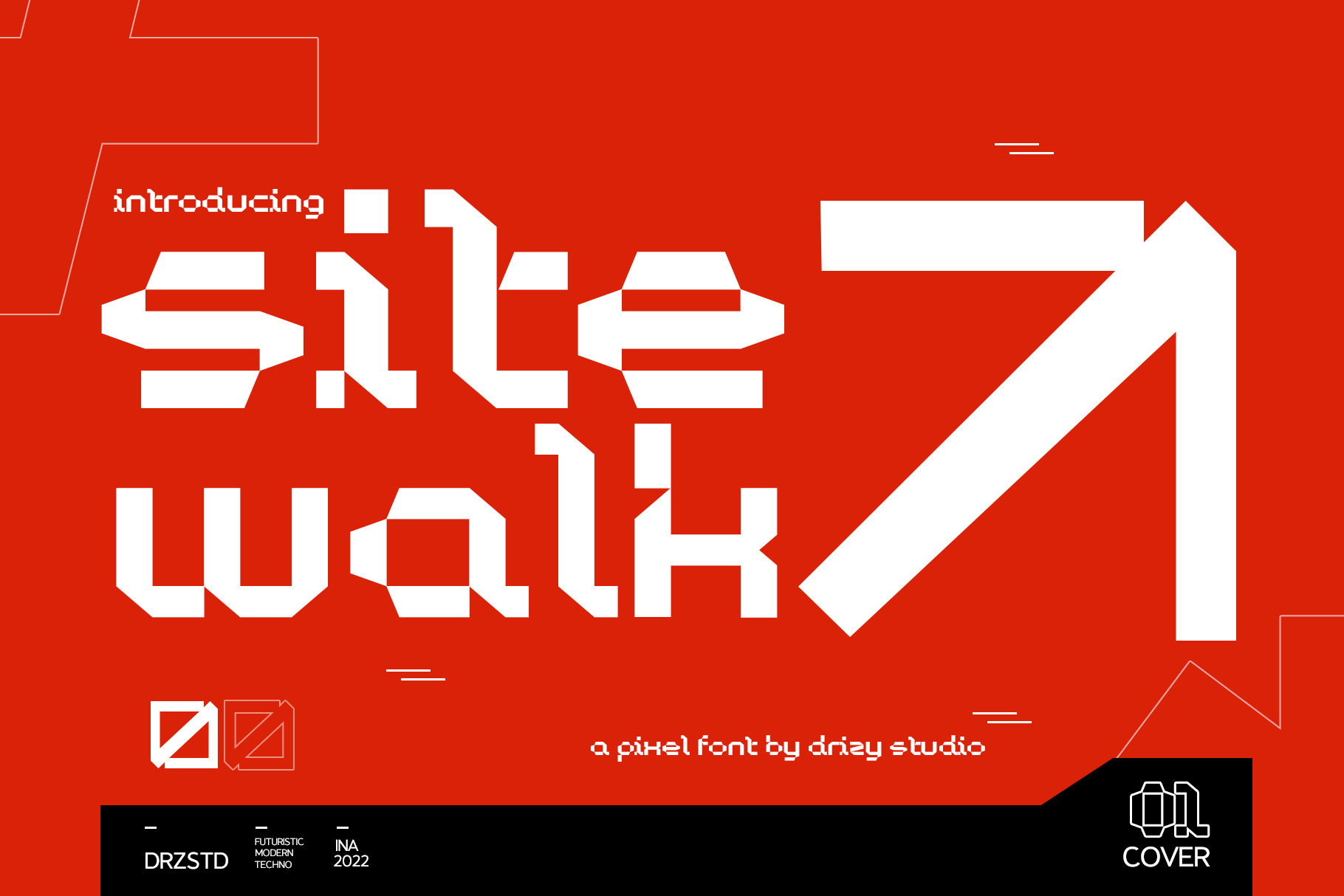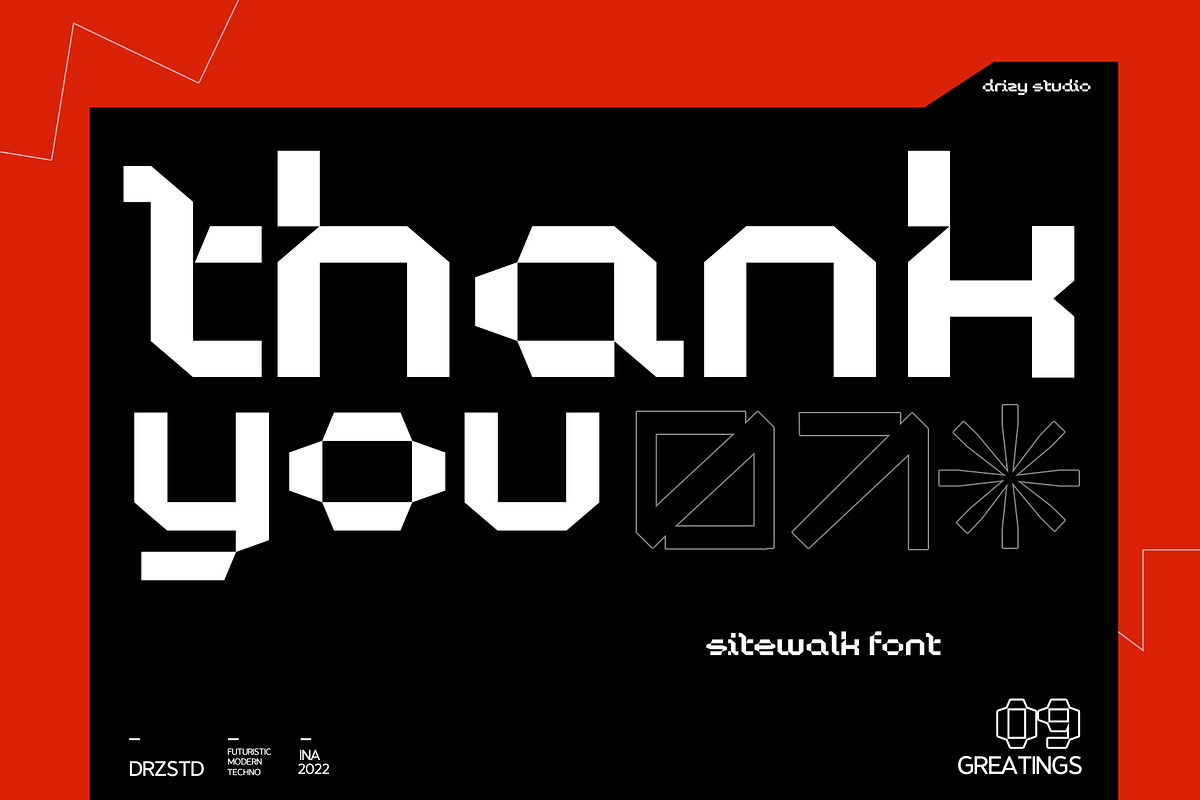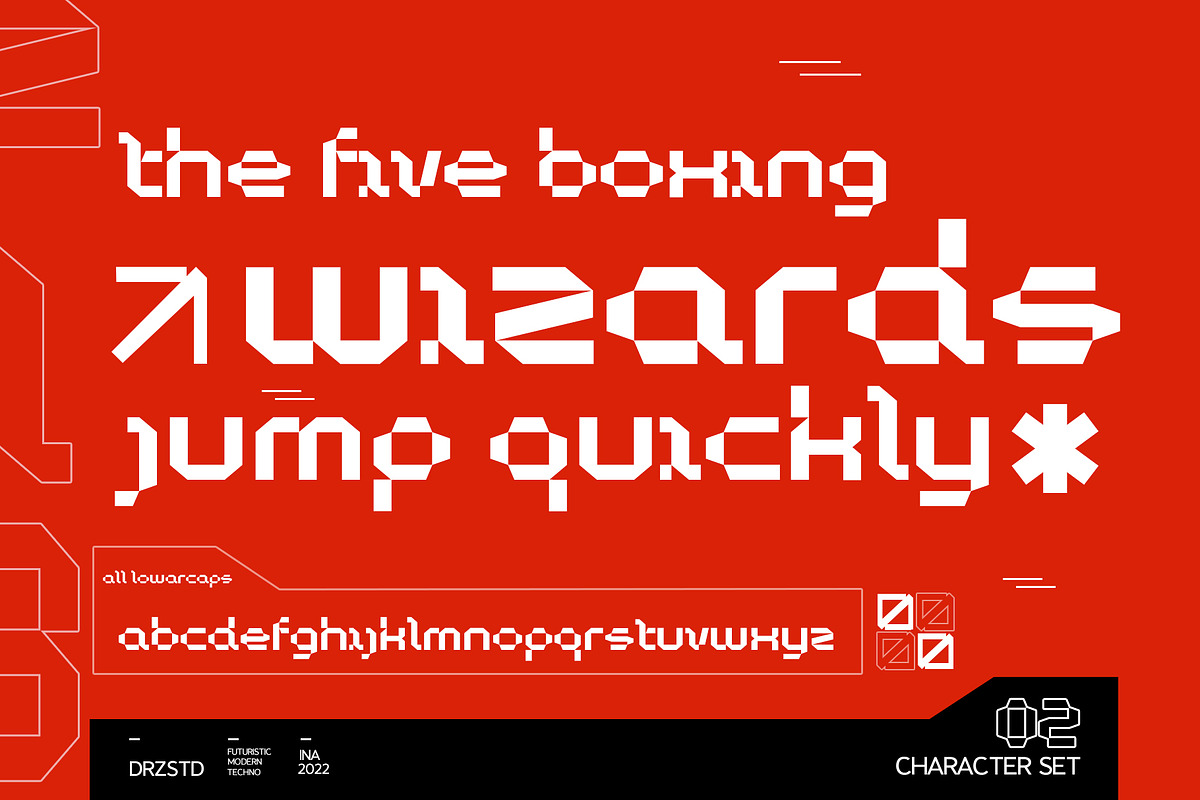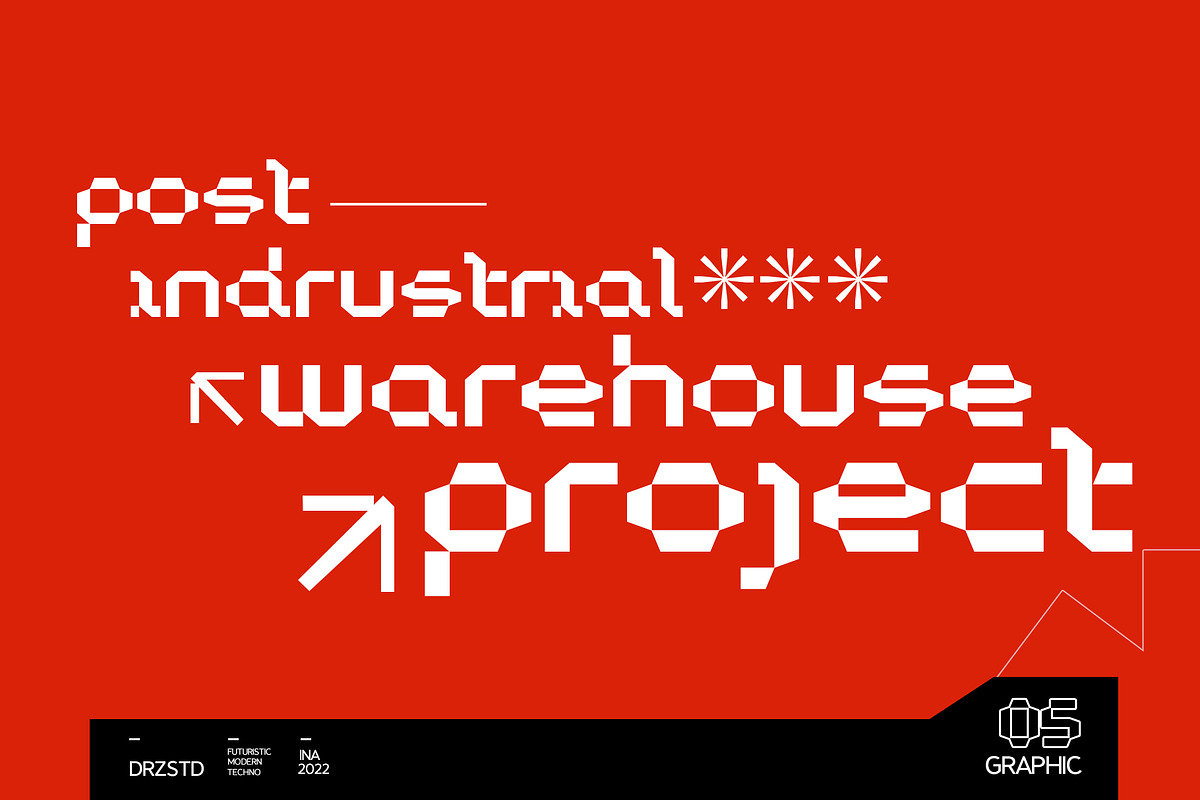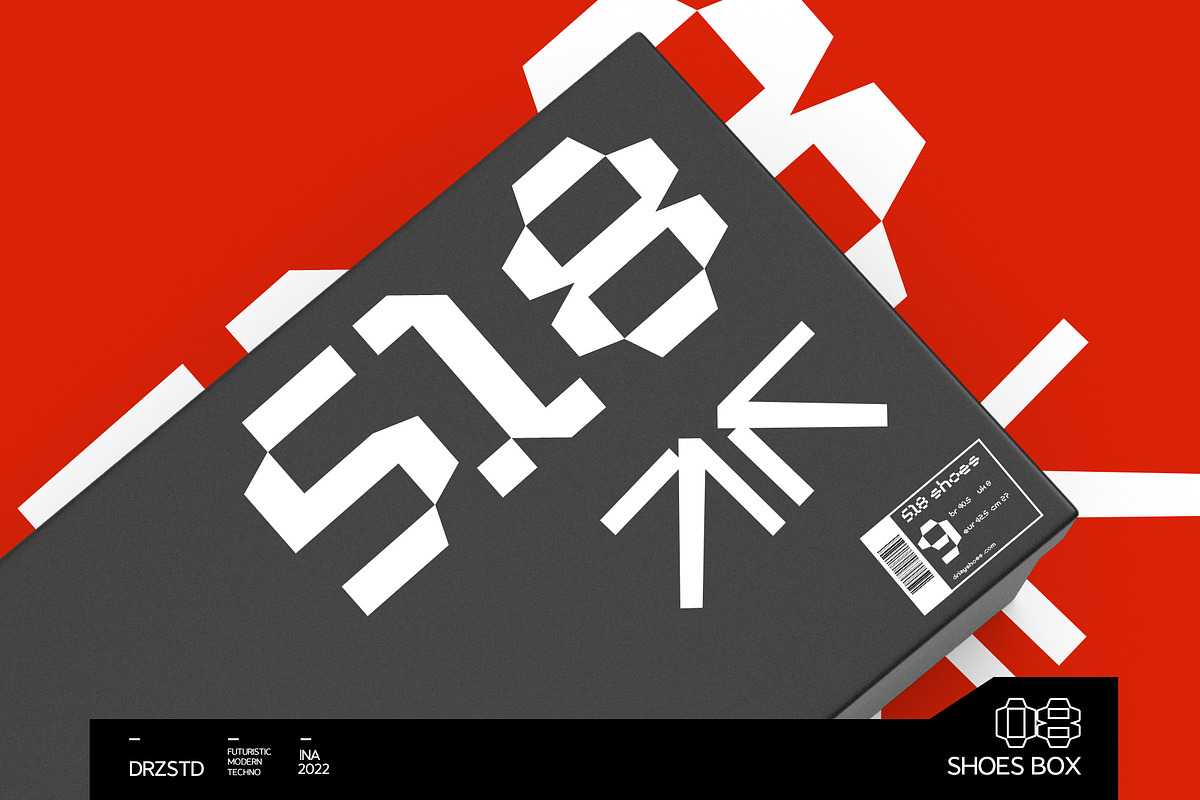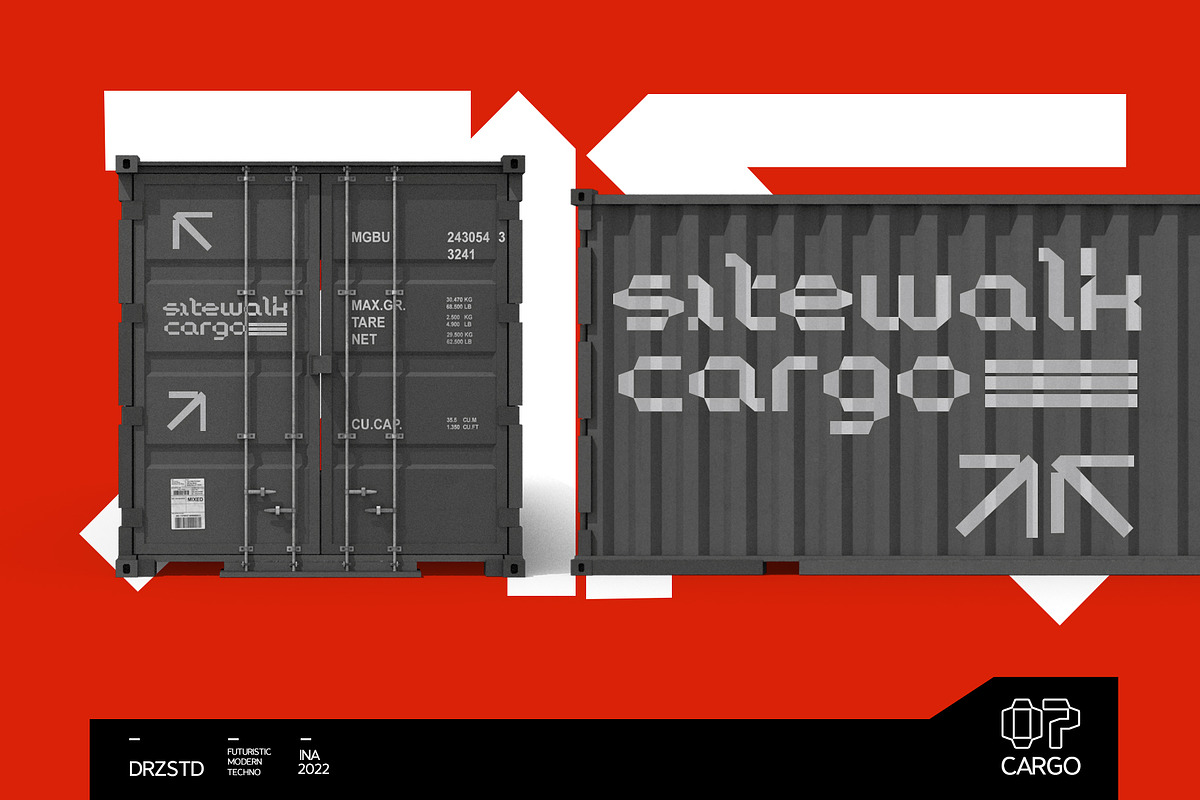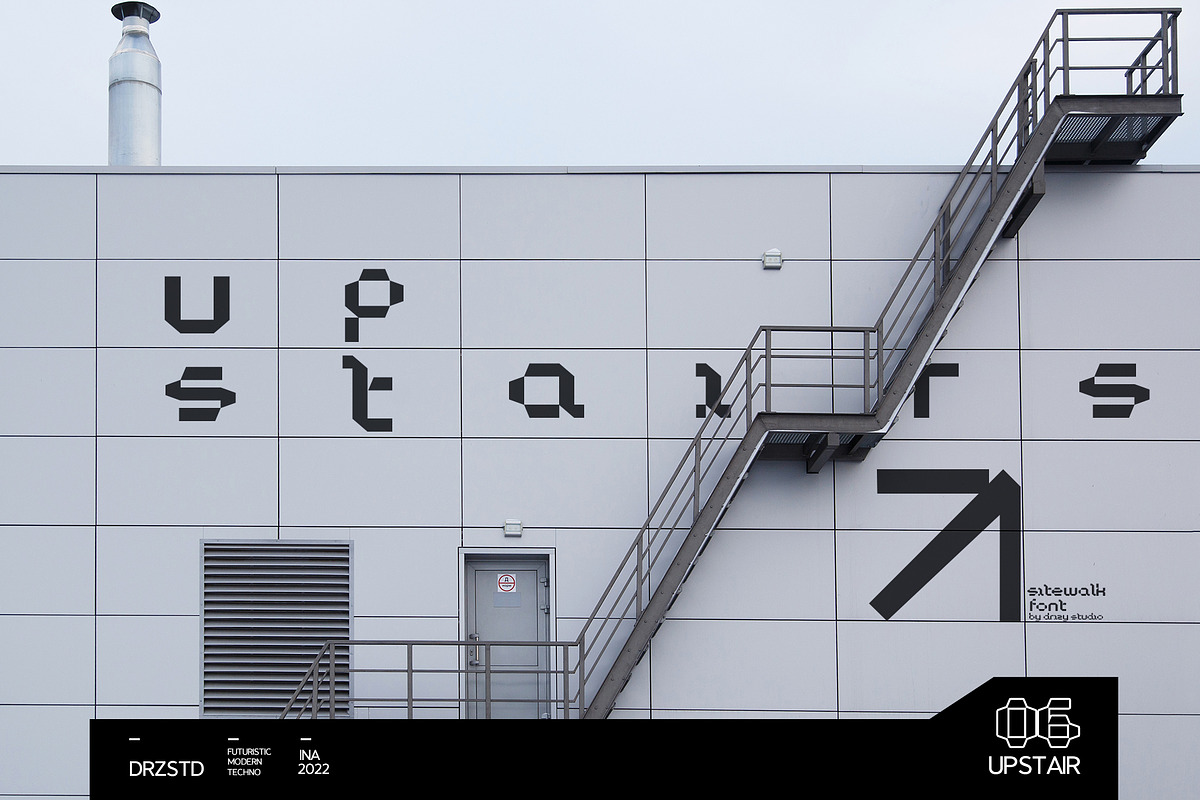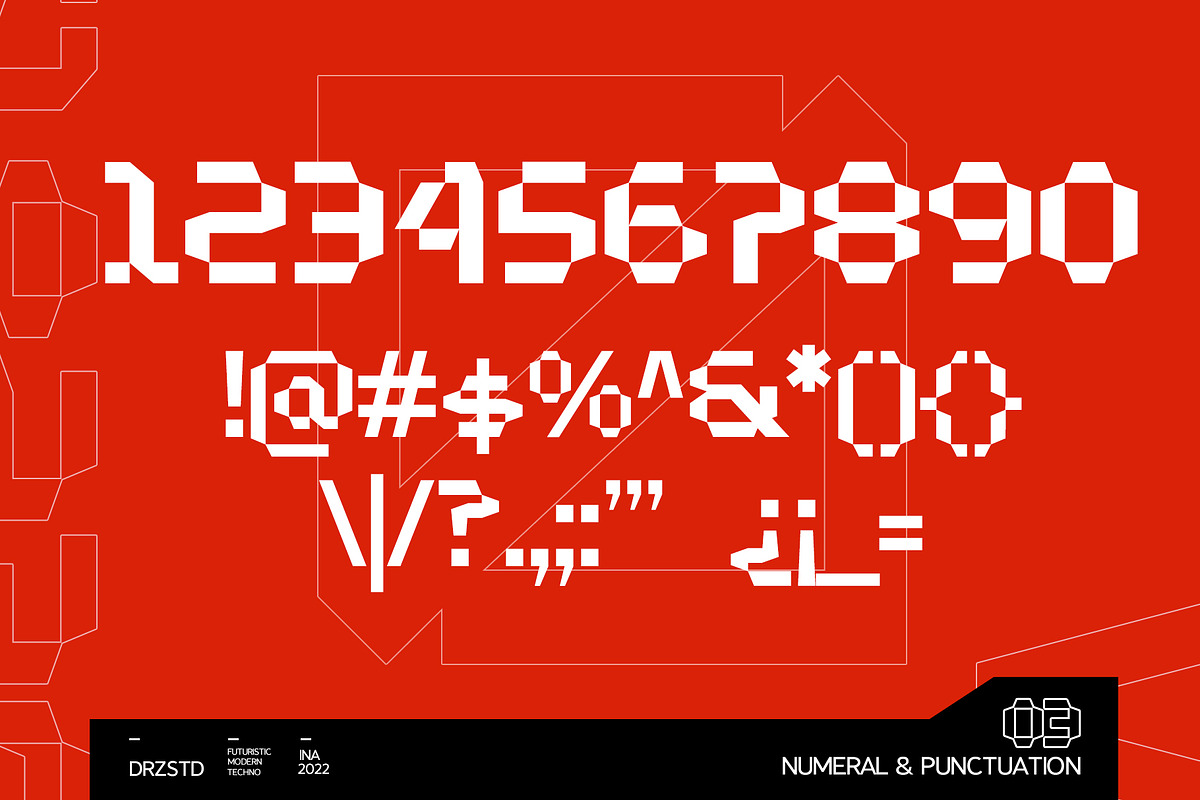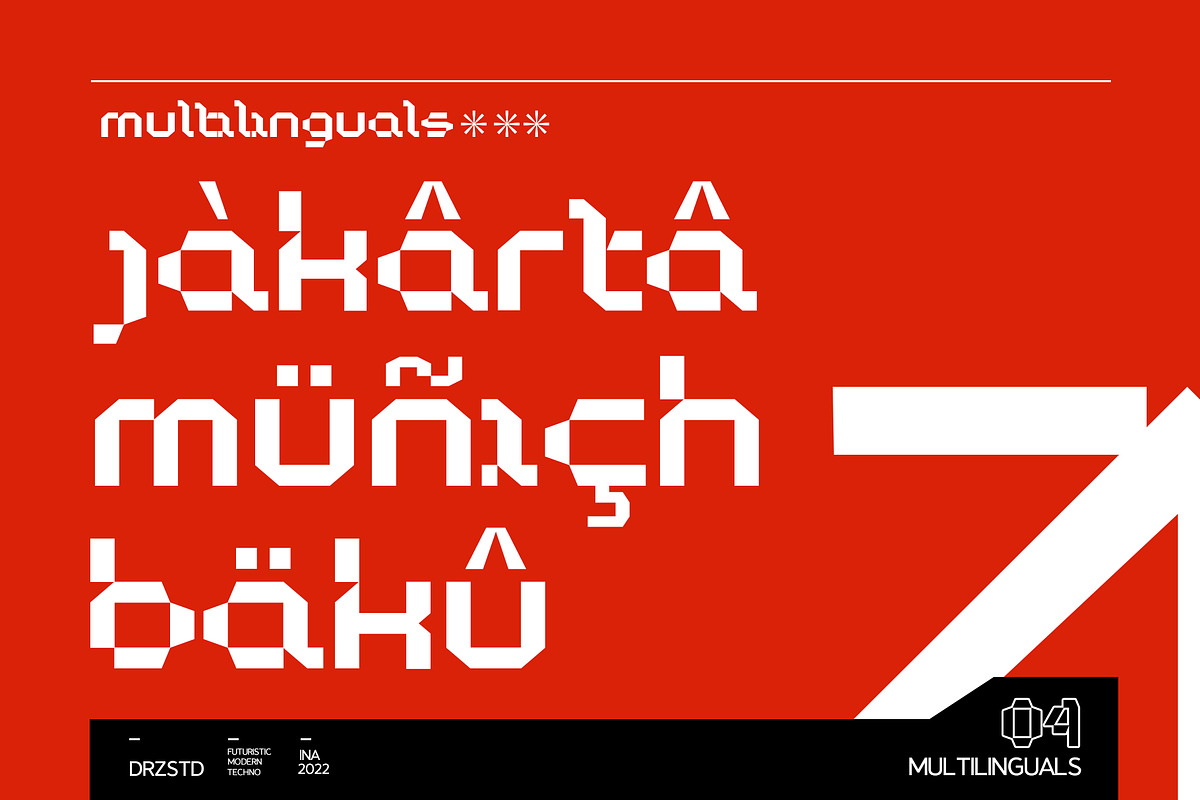
Sitewalk – Futuristic Pixel Font
Sitewalk – Futuristic Pixel Font from Drizy studio. Offering all the basic styles you will need especially for techno and futuristic theme project.
Sitewalk Features: Lowercase Numeral & Punctuation Multilinguals Alternates Ligatures